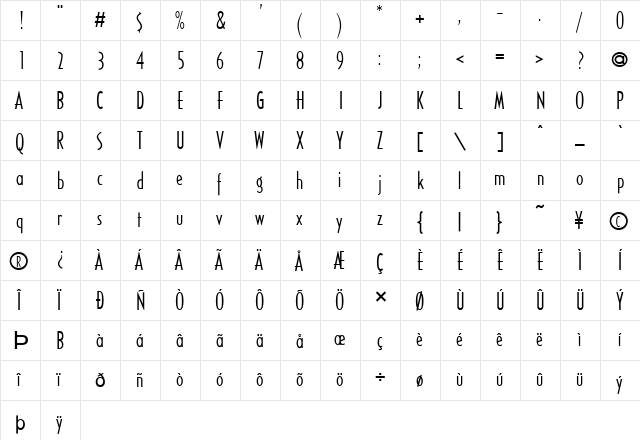
Zero Normal
Design Context for Zero Typeface
Zero offers clean, dependable letterforms without strong stylistic allegiance, making it a practical choice for designers who need flexibility.
Pro Tip: Pair Zero with a font of contrasting weight or personality to build a more expressive typographic hierarchy.